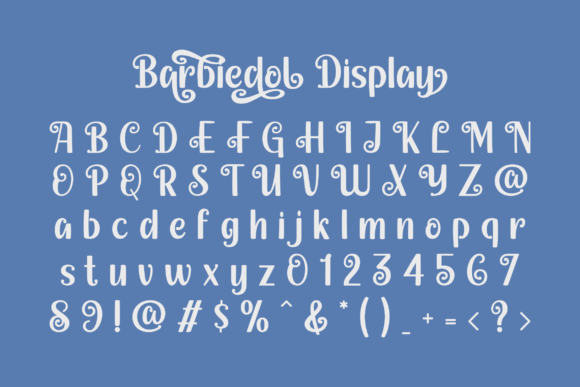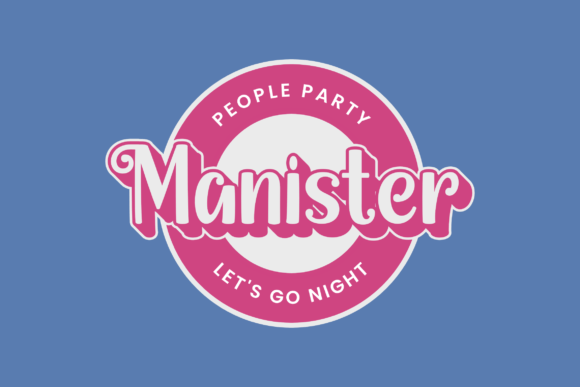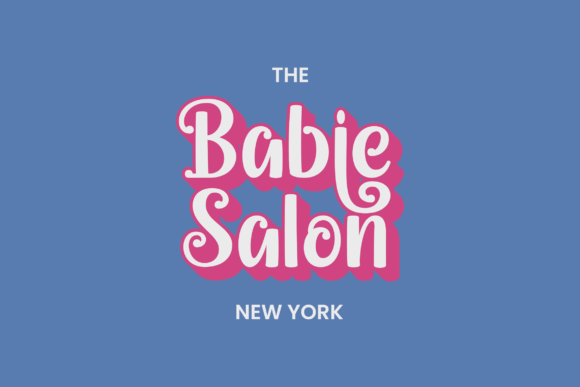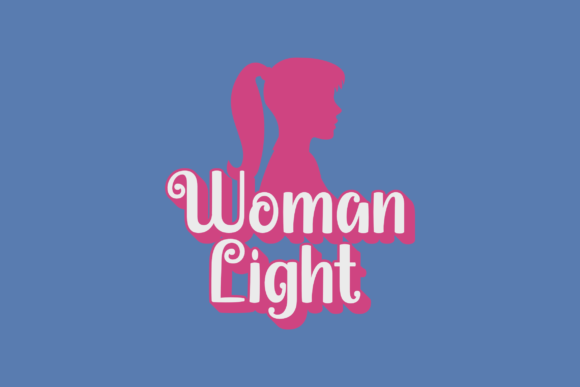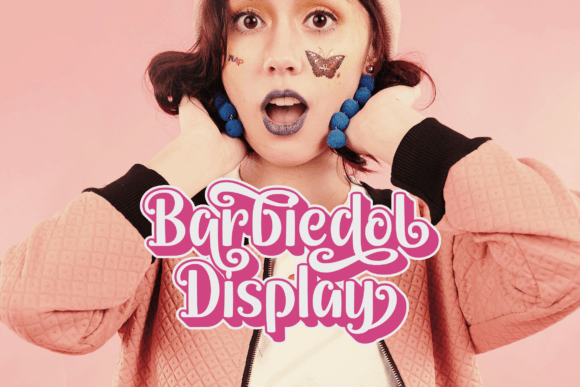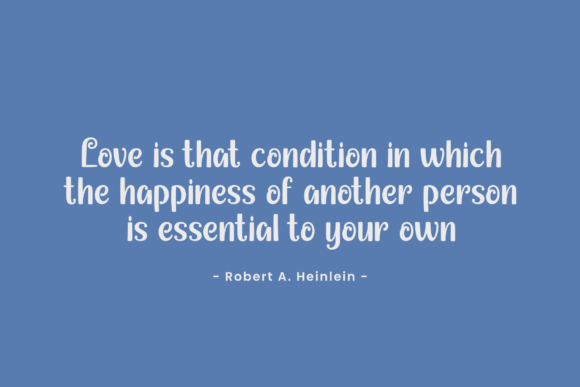
Introducing Barbiedol Display Font: The Perfect Addition to Your Feminine Designs
Are you a designer or crafter looking for a font that embodies the essence of femininity and sweetness? Look no further than Barbiedol Display Font, a stunning display font inspired by the iconic movie Barbie. This beautiful font is carefully crafted to bring a touch of elegance and softness to your designs, making it perfect for a wide range of creative projects.
A Font that Embodies Femininity
Barbiedol Display Font is designed with a distinctly feminine feel, making it an ideal choice for designers who want to create sweet and soft designs. The font’s curves and lines are carefully crafted to evoke a sense of delicacy and sophistication, perfect for designs that require a touch of elegance. Whether you’re working on a wedding invitation, logo, or poster, this font is sure to add a dash of femininity to your project.
Versatile and Multifaceted
One of the best things about Barbiedol Display Font is its versatility. This font can be used for a wide range of designs, including:
- Wedding invitations: Add a touch of romance and elegance to your wedding invitations with this beautiful font.
- Logos: Create a stunning logo for your business or brand with a font that’s both feminine and sophisticated.
- Headlines: Use Barbiedol Display Font to create eye-catching headlines that grab attention and make a statement.
- Posters: Create stunning posters for events, promotions, or advertising campaigns with this beautiful font.
- T-shirt designs: Add a touch of sweetness to your t-shirt designs with this adorable font.
- Tote bag designs: Create cute and stylish tote bag designs that are perfect for everyday use.
Why Choose Barbiedol Display Font?
So why choose Barbiedol Display Font for your next design project? Here are just a few reasons:
- Unique and eye-catching: This font is sure to grab attention and make a statement with its unique and eye-catching design.
- Feminine and elegant: Barbiedol Display Font is carefully crafted to bring a touch of femininity and elegance to your designs.
- Versatile: This font can be used for a wide range of designs, from wedding invitations to t-shirt designs.
In conclusion, Barbiedol Display Font is a stunning addition to any designer’s collection. With its feminine and elegant design, versatility, and ease of use, this font is perfect for a wide range of creative projects. Whether you’re working on a wedding invitation, logo, or poster, Barbiedol Display Font is sure to bring a touch of sweetness and sophistication to your design. So why wait? Download Barbiedol Display Font today and start creating stunning designs that stand out from the crowd!